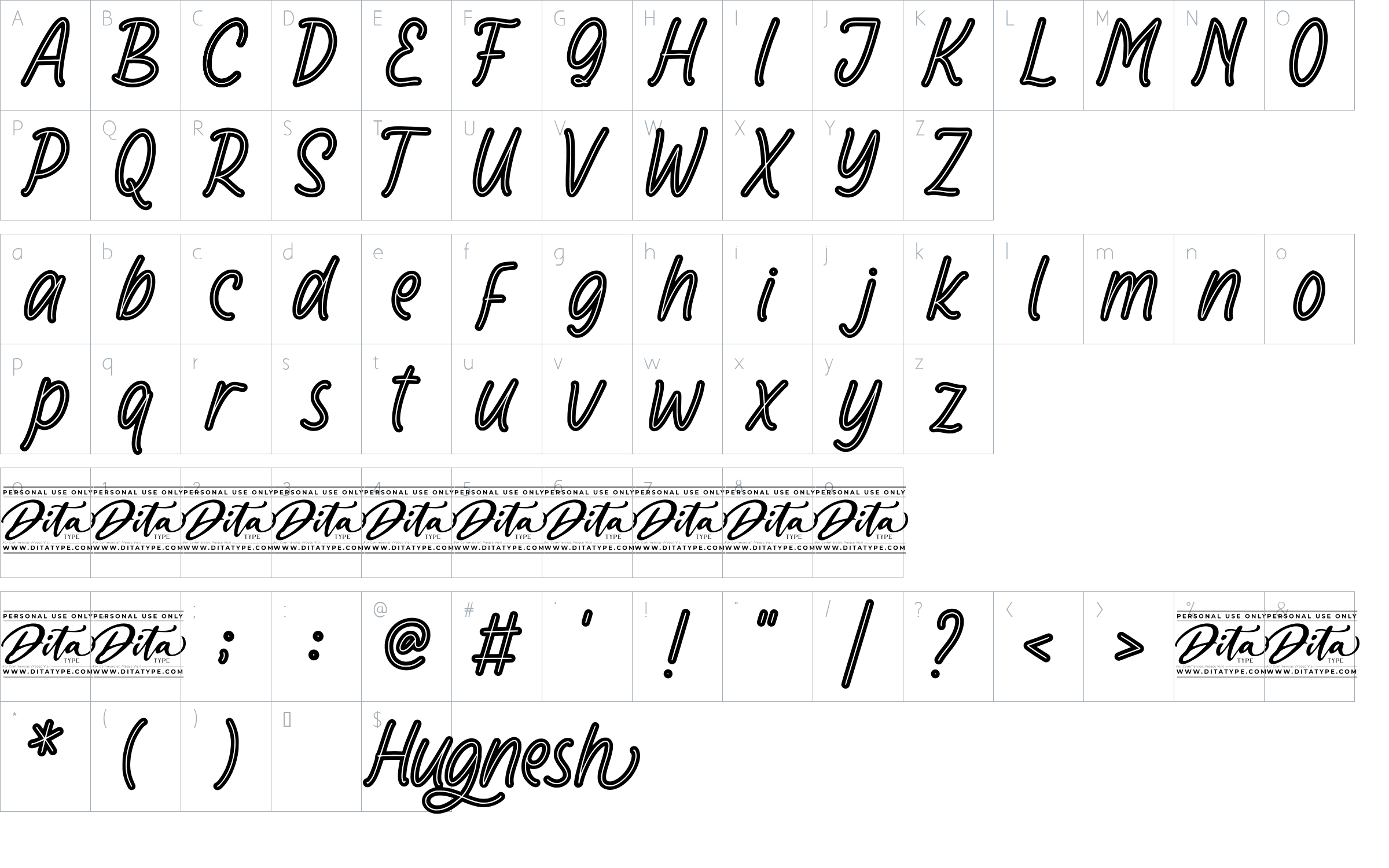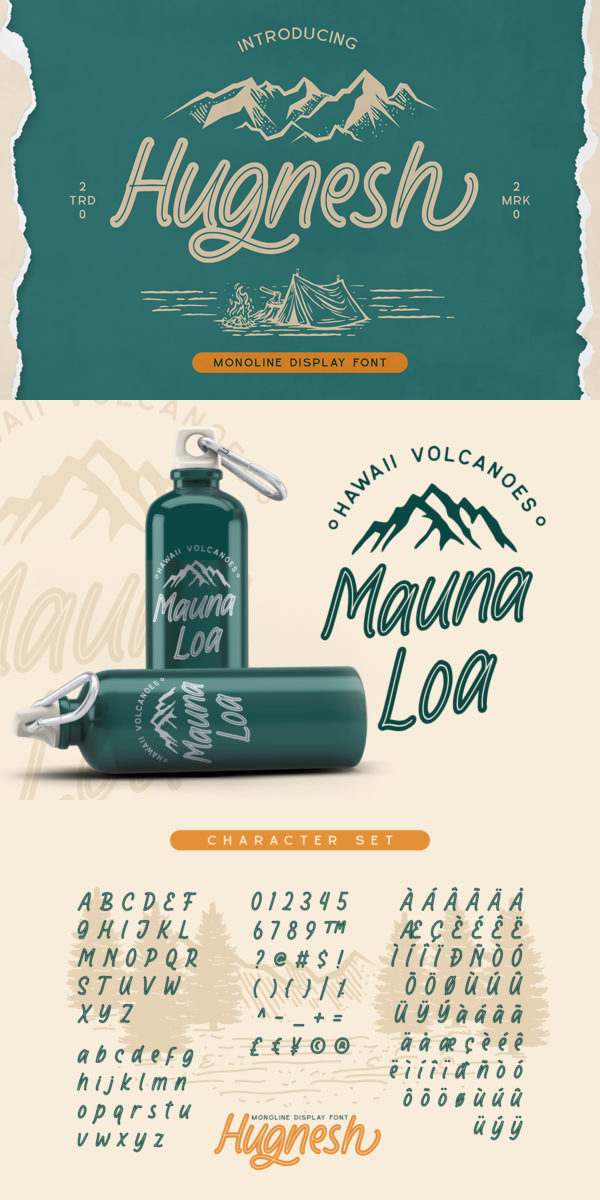
Hugnesh Font
About Hugnesh
Hugnesh font is a monoline display font. Create from our talented font designer. The design of typeface will make your design more beautiful and inspiring. This font will suitable for any project, like branding, print template, logo and etc.
-Beautiful Ligature
-Stylistics Set
-Numerals and Punctuation (OpenType Standard)